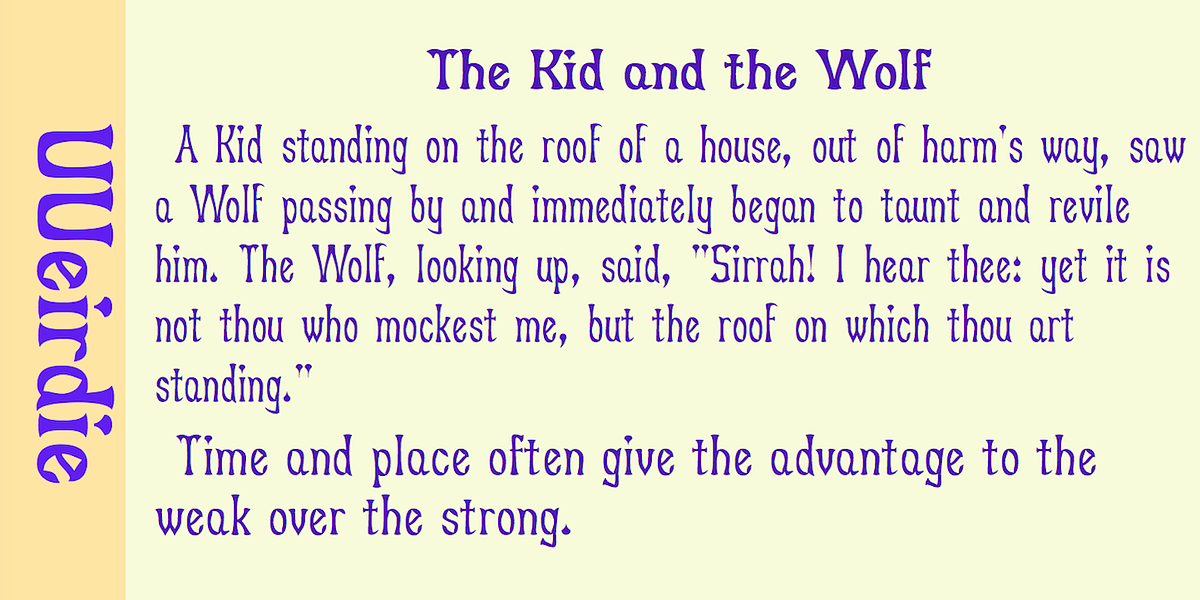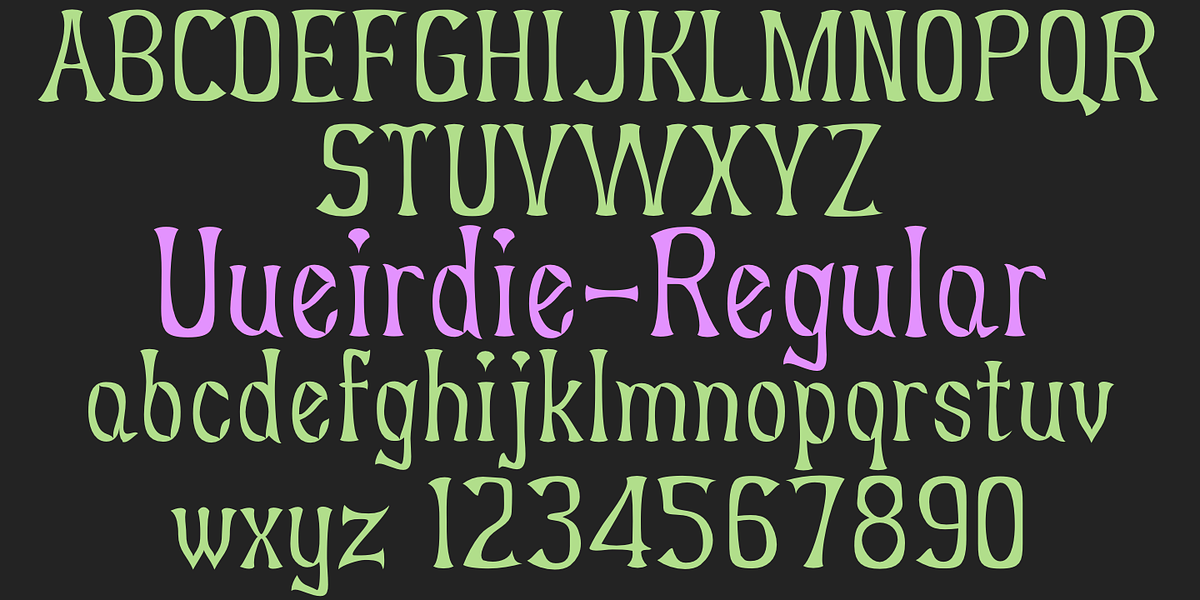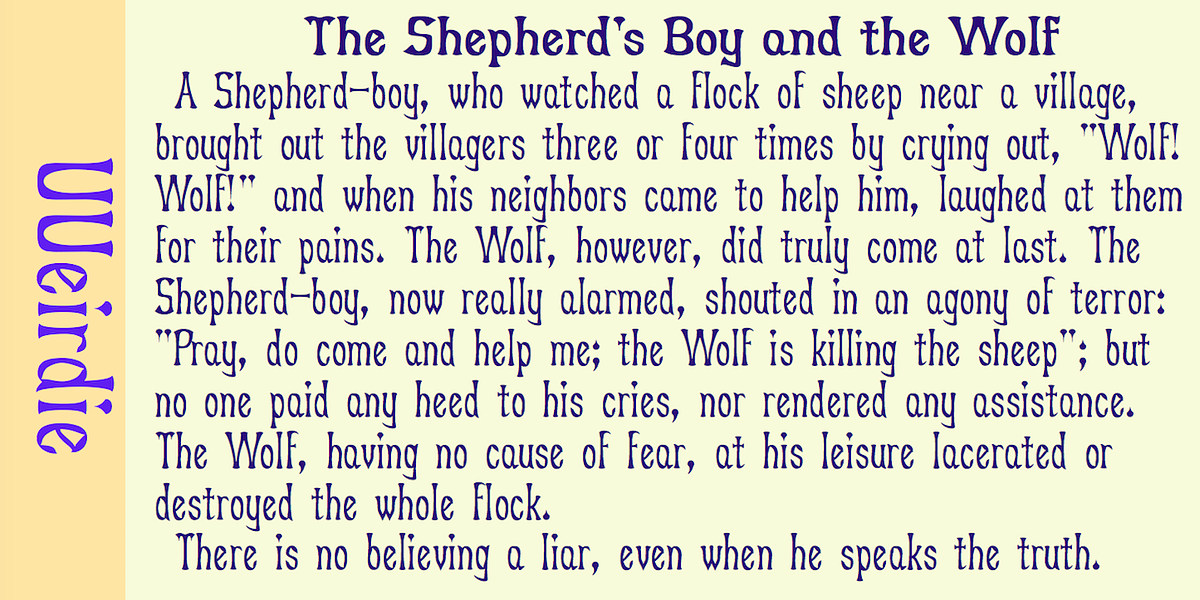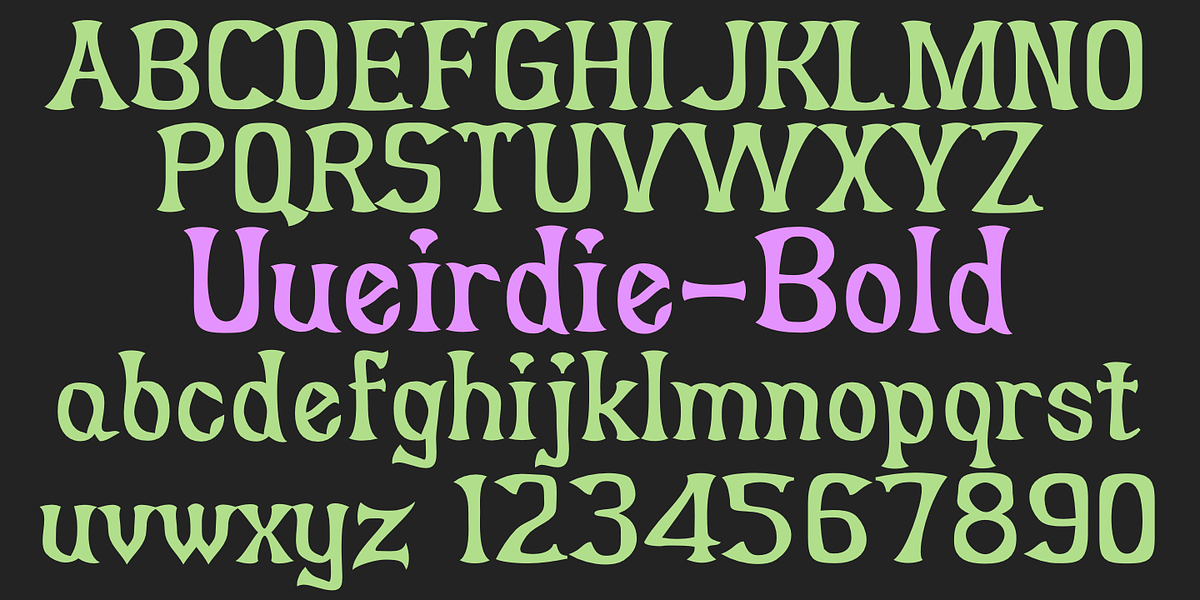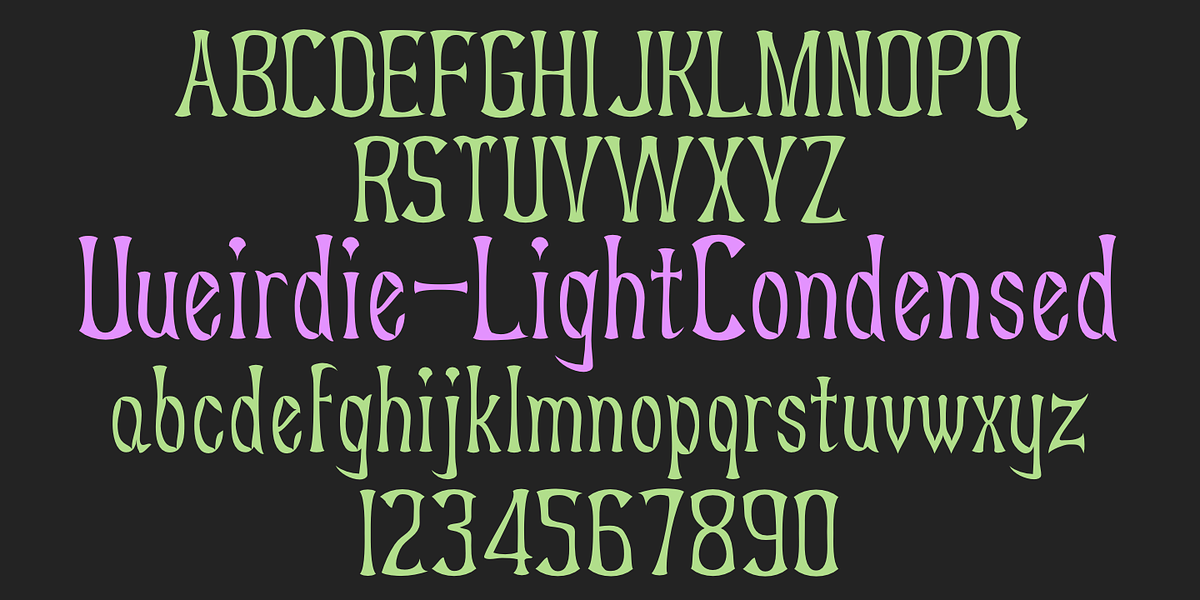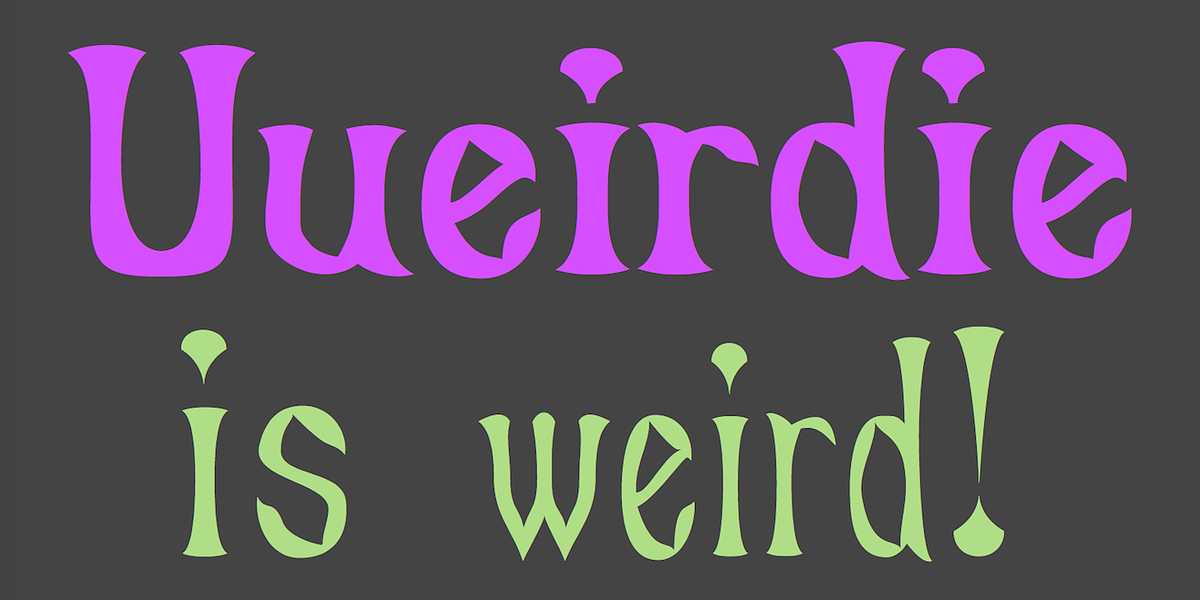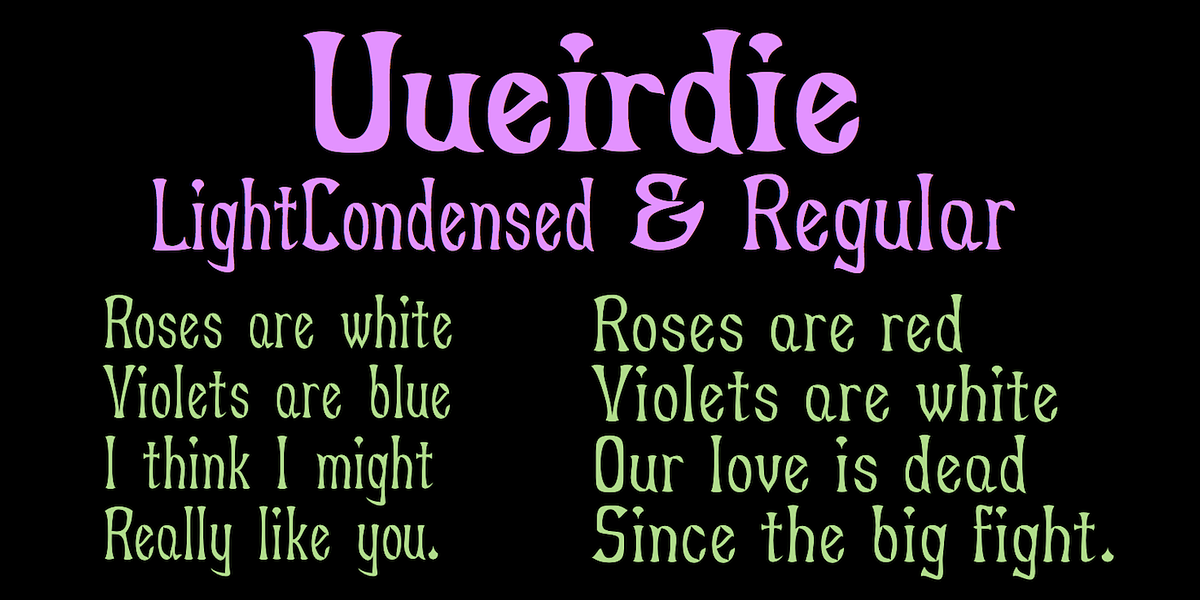
Uueirdie
UUeirdie is a display font characterized by its rough and irregular appearance. It features flared serifs that add a unique touch to the design. The font draws inspiration from 1990s graphic trends and evokes a sense of quirkiness and playfulness. Its condensed width makes it suitable for headlines and posters where space is limited.